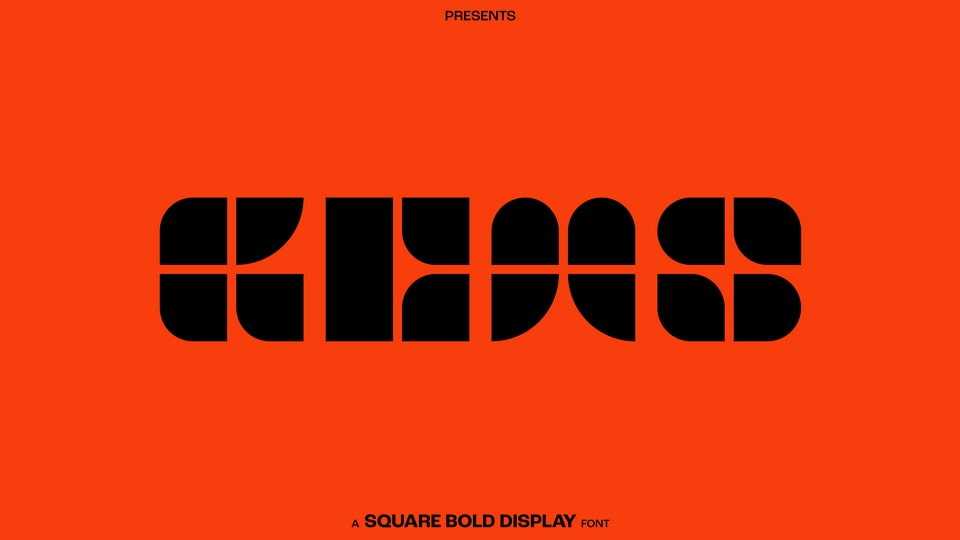
Download Gems font, a condensed display typeface in a decorative character set. Gems based on the concept of Gemstones, keeping the “Square” as its base, it holds other details that are optically corrected.
Designer: Amit Yogi